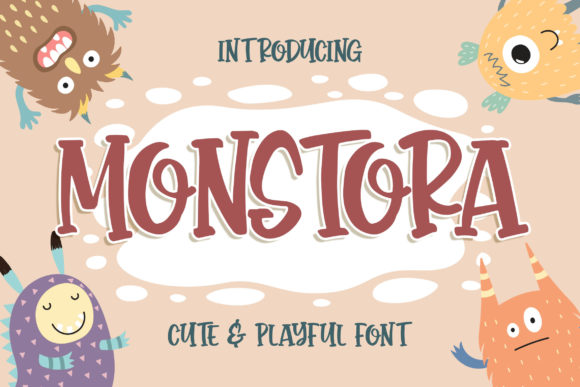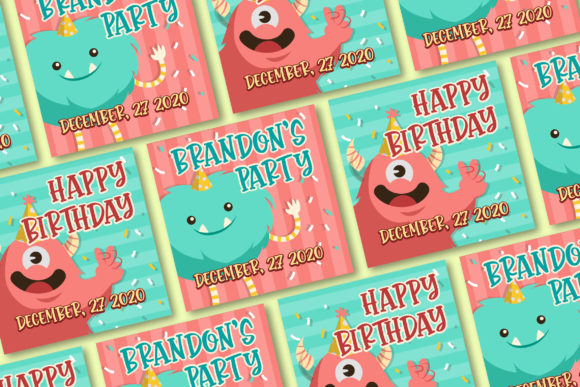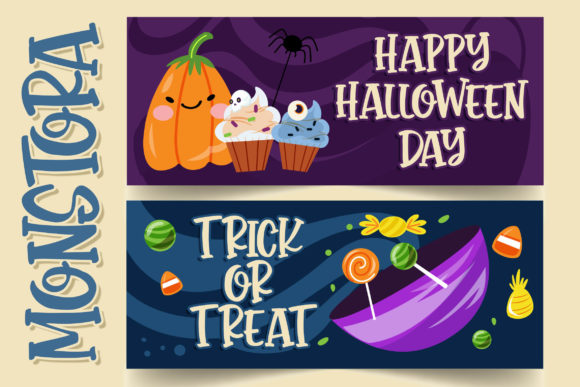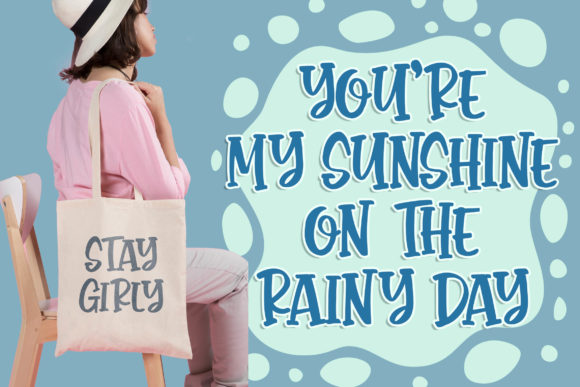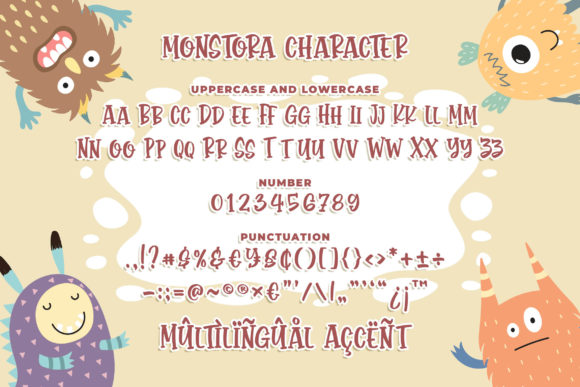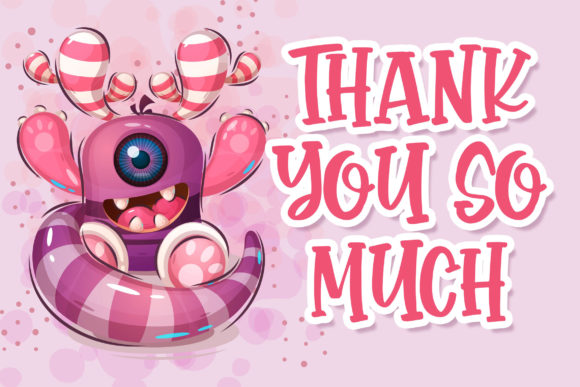
Monstora Font
Monstora is a cute and quirky display font. It will add an incredibly joyful touch to your designs. Add this beautiful display font to each of your creative ideas and notice how it makes them stand out!